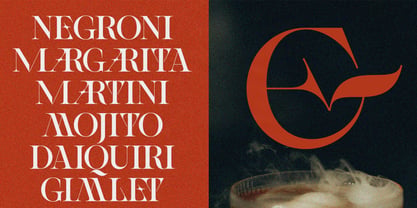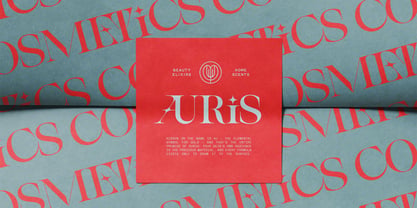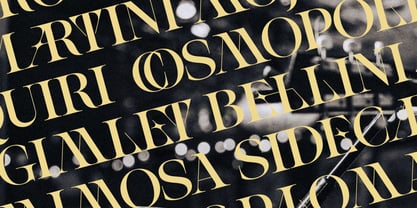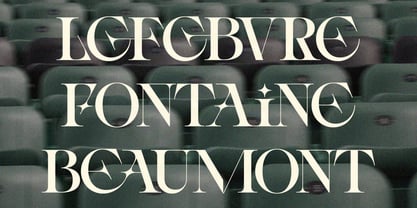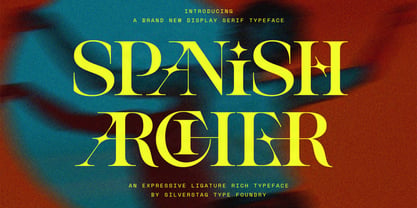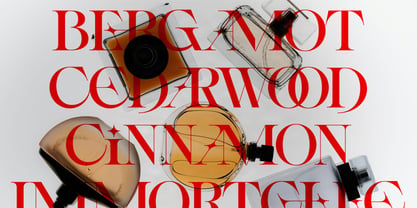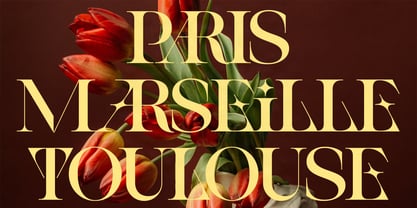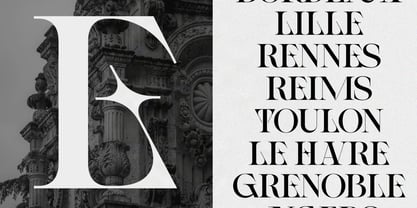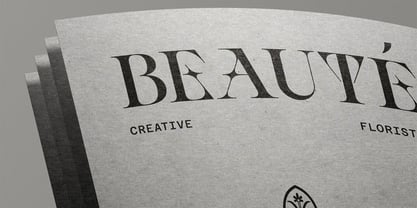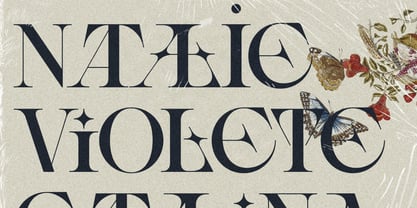
SLTF Spanish Archer
SLTF Spanish Archer is an uppercase-only display serif typeface built around one idea: letters that refuse to stand alone. With over 200 ligatures connecting, overlapping, and locking characters into each other, every word set in Spanish Archer becomes a small piece of custom lettering - no manual kerning tricks, no outline editing, just type and watch the pairs find each other.
Underneath the expressive surface sits a disciplined high-contrast serif - hairline joins, confident stems, and sharp wedge details that hold up in print and on screen. At display sizes the ligatures do the talking; the result works equally well as a wordmark, a poster headline, a wine label, or an editorial opener that needs to stop the reader mid-scroll.
Because the ligatures are built as standard OpenType features, they activate automatically in any modern design app - Adobe Illustrator, Photoshop, InDesign, Figma, Canva, and beyond. The pairs appear from the very first keystroke, and switching ligatures off reveals a cleaner, classic display serif underneath. Two typefaces in one decision.
SLTF Spanish Archer supports over 100 languages, making it ready for international branding work straight out of the file.
Perfect for:
• Logos and wordmarks
• Branding and packaging
• Editorial and magazine design
• Posters and headlines
• Fashion, beauty, and luxury brands
• Wine, spirits, and food labels
Key features:
• Uppercase-only display serif
• 200+ standard ligatures
• Support for 100+ languages